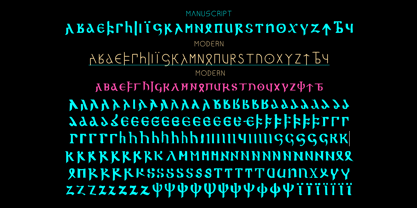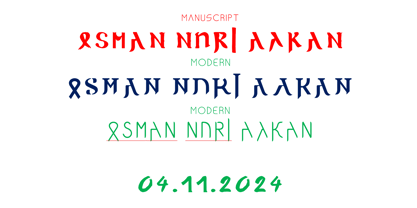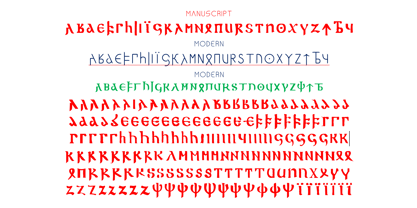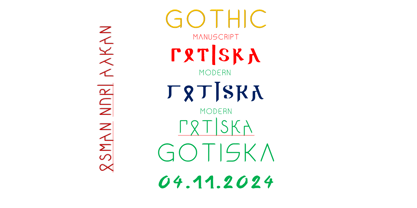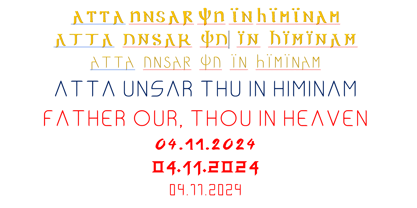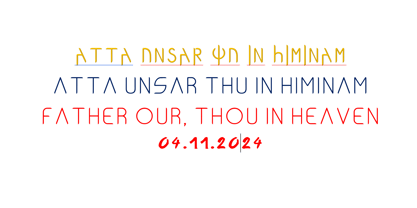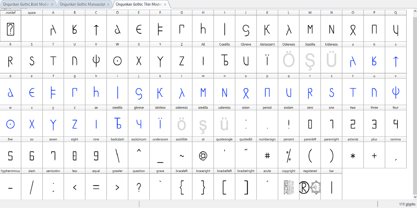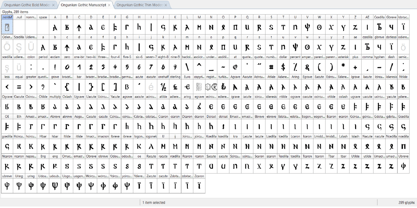
Ongunkan Gothic Family
The Ongunkan Gothic Family Font Family was designed by Osman Nuri ALKAN and published by Runic World Tamgacı. Ongunkan Gothic Family contains 3 styles and family package options. More about this family
I completed the alphabet of the Gothic language in the Codex Argenteus manuscript, which took me approximately 3 months. Although there was a Unicode block assigned to the Gothic alphabet, the font caused a problem. When I added Unicode it constantly created an error. So I created a solution by removing the Unicode block from the font. These 3 fonts were created based on Latin. The manuscript is formatted in Modern thick and Modern thin. There are dozens of different spellings of letters in handwritten font. Friends who want to change the fonts can contact me. The Codex Argenteus (Latin for "Silver Book/Codex") is a 6th-century illuminated manuscript, originally containing part of the 4th-century translation of the Christian Bible into the Gothic language. Traditionally ascribed to the Arian bishop Wulfila, it is now established that the Gothic translation was performed by several scholars, possibly under Wulfila's supervision. Of the original 336 folios, 188 including the Speyer fragment discovered in 1970 have been preserved, containing the translation of the greater part of the four canonical gospels. A part of it is on permanent display at the Carolina Rediviva building in Uppsala, Sweden, under the name "Silverbibeln" (i.e. "The Silver Bible").